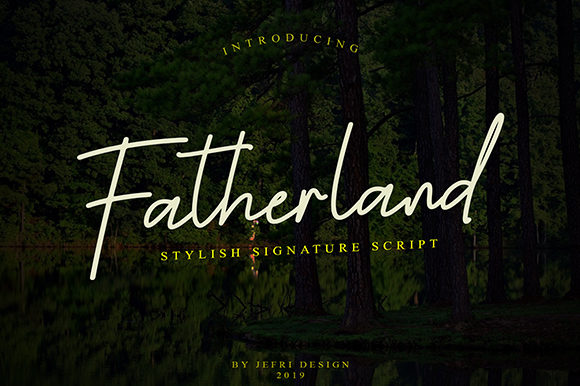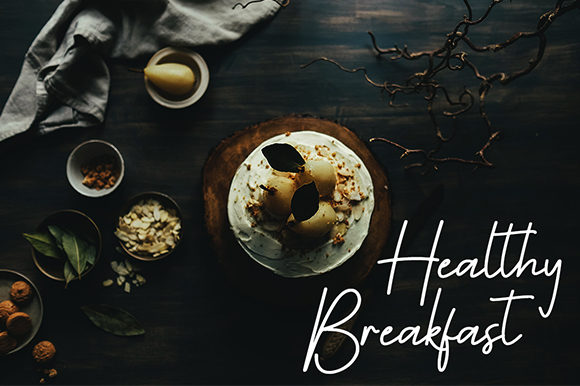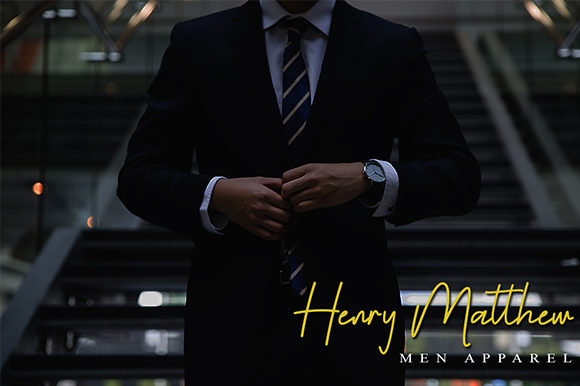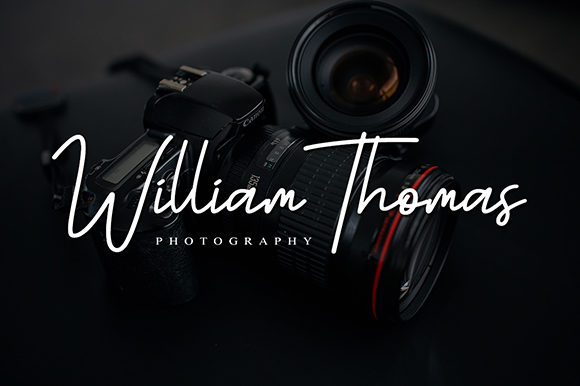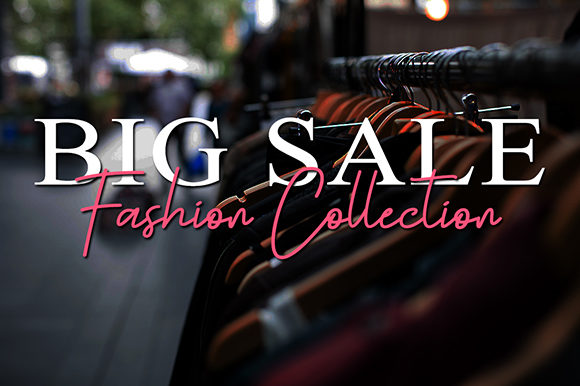
Fatherland Script Font
About Fatherland Script Font
Fatherland is an incredible script font with beautiful lettering. It will add an authentic touch to any design project.